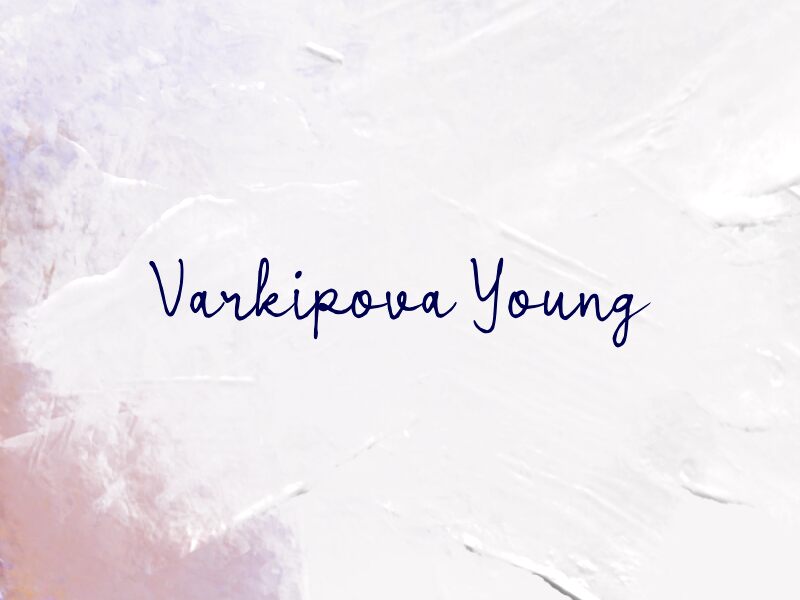
Varkipova Young font by wepfont.com is a free handwritten font with a youthful and fresh style. It has a friendly and natural appearance that suits various purposes where you want to maintain a personal touch. With its organic flow, it captures a creative vibe of handwritten elegance that is quite contemporary. Simple and clean yet extremely expressive and catchy, all it takes is well-thought use of this typeface to yield fruitful results in projects.
The font is perfectly ideal for short quotes, taglines, greeting cards, posters, website typography, magazines, package design, T-shirt designs, and much more. Call-to-action web pages, menu cards, and social media content are other examples where Varkipova Young can enhance the presentation. In the end, express yourself by simply typing a sentence in all caps or mixing the available characters.
Varkipova Young is a stylish and modern free font that adds a unique flair to your designs. With its elegant lines and contemporary aesthetic, this font is perfect for a variety of creative projects, from posters and invitations to branding and digital media.